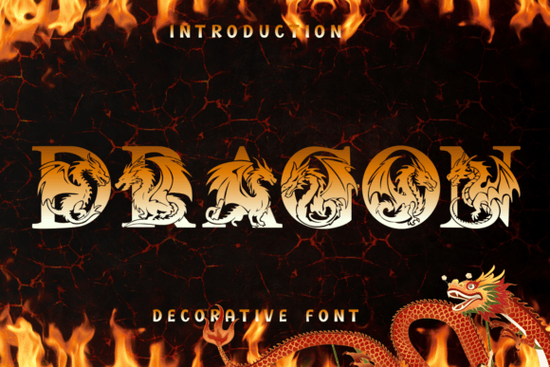
If you're looking for a bold, standout font that turns ordinary text into something truly memorable, the Dragon Font delivers exactly that. This decorative typeface isn’t just a collection of letters it’s a visual journey into a world of myth and magic. Each character is designed with flowing dragon forms, detailed scales, and dramatic wings, making every word feel like it’s alive. Whether you’re branding a fantasy game, designing a movie poster, or creating unique apparel, this font adds instant impact.
What Makes the Dragon Font Special?
Unlike regular fonts, the Dragon Font blends typography with illustration. The letters aren’t just shaped like dragons they’re built around them. You’ll notice how the curves of the 'D' resemble a coiled dragon’s body, while the 'R' might feature a winged tail. It’s perfect for logos, title cards, or any project where you want to make a strong visual statement without relying on separate graphics.
The font works well in both digital and print formats, so it’s ideal for designers working across platforms. Use it for T-shirt designs, stickers, book covers, or even social media banners. Its high level of detail means it stands out at larger sizes, but still holds up when used subtly.
How to Use the Dragon Font in Your Projects
- For tabletop RPGs: Create custom spellbooks, character sheets, or campaign maps with a legendary feel.
- For apparel: Pair it with dark backgrounds and gold accents to give your streetwear line a mythical edge.
- For video or film titles: Add motion effects to the dragon elements for an epic opening sequence.
- For personal branding: Use it as a signature logo for a creative studio, YouTube channel, or artist name.
You can enhance the look by layering textures try adding a fiery gradient or subtle smoke effect behind the letters. These small touches help bring the dragon imagery to life and give your design more depth.
Where Does the Dragon Font Fit Best?
This font shines in themes related to fantasy, adventure, and mythology. It fits naturally in projects involving dragons, knights, ancient empires, or magical worlds. If your brand leans toward bold, artistic expression, this font gives it personality and presence.
Why Designers Choose This Font
One reason the Dragon Font stands out is its versatility. It functions as both a functional typeface and a standalone artwork. That means you don’t need extra graphic layers just the font file itself. It’s especially useful for print-on-demand sellers who want quick, high-quality results without complex editing.
Final Thoughts: Is It Right for Your Project?
If you need a font that feels powerful, imaginative, and full of character, the Dragon Font is worth trying. It’s not meant for everyday use like emails or reports but when you want to create something unforgettable, it excels.
Before you decide, ask yourself: does your project need a sense of mystery, strength, or storytelling? If yes, this font could be the perfect fit.